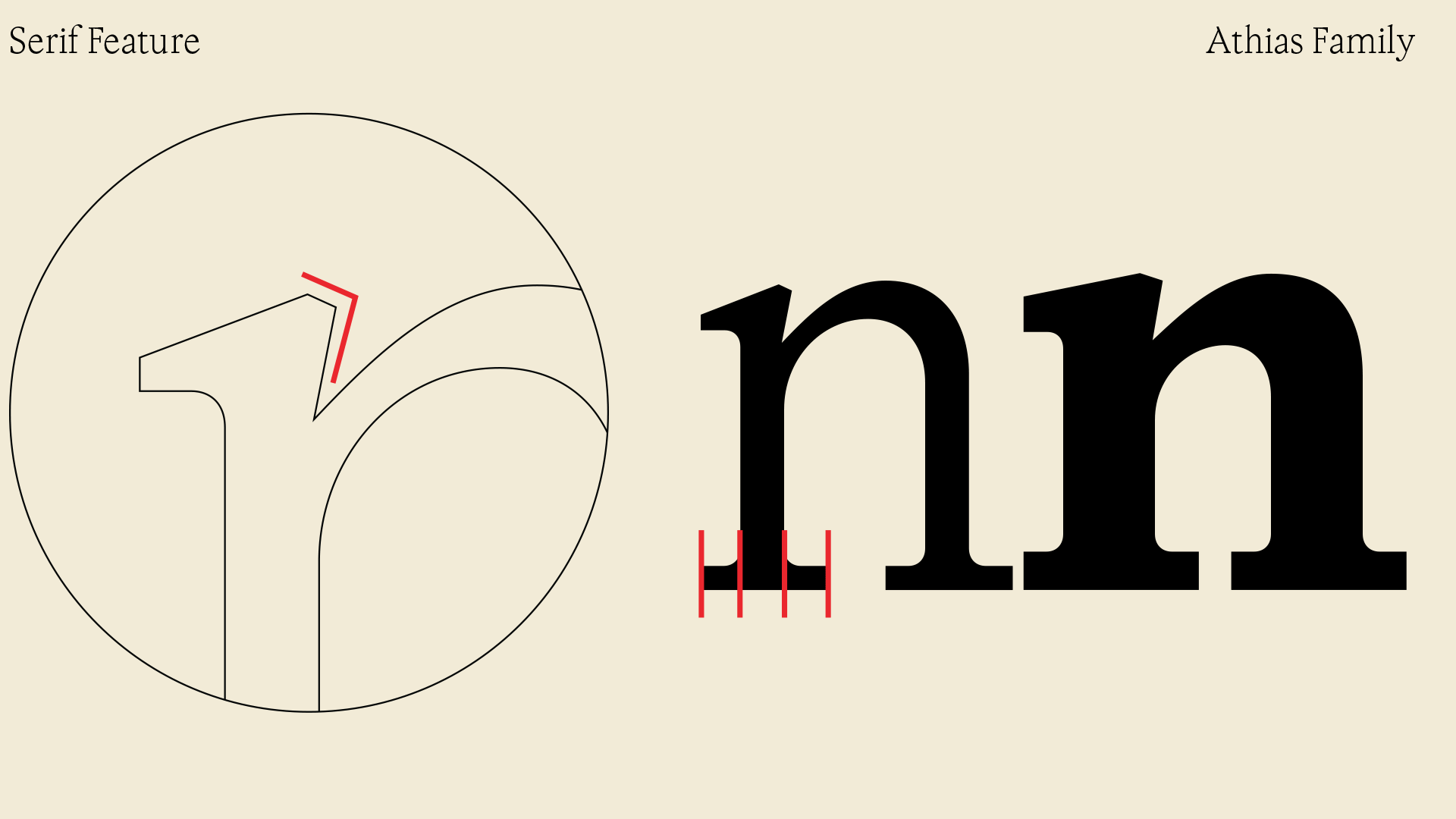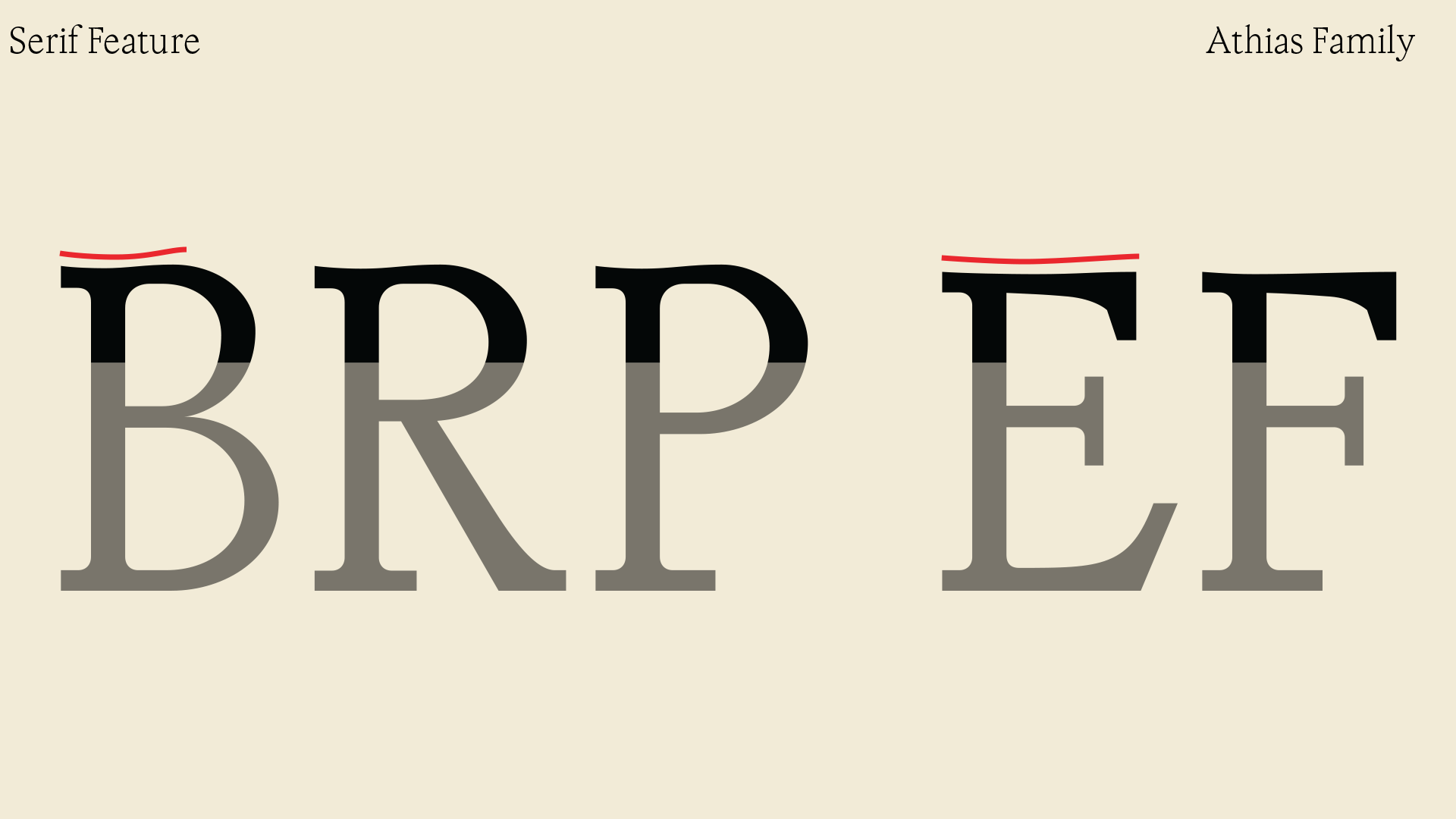
Athias
I have always wanted my first typeface to be a book typeface. So I took the opportunity at TypeParis 2023 to create the most complete version what I wanted to do. I understand when it comes to designing a book typeface, everything has to be simple. I don’t get to play around with the serif much, but in return, my focus is shifted to the typographic attention: evenness of color (texture), harmony in proportion and weight distribution, spacing between the letters and between the words.
Athias is born in Paris, summer 2023. Inspired by the concept of Trinite typeface family by Bram de Does (1934-2015), Athias comes in two variations of ascender to accommodate basic Latin language and most importantly, the underserved Vietnamese language. The typeface family is specifically design to suit book’s settings with high legibility in small text sizes. Recognizing the unique features of the Vietnamese language, Athias provides full Vietnamese alphabet in its secondary ascender, including diacritics and tone marks, ensure clarity and the nuances of Vietnamese literature are accurately represented. The design feature is classical with humanist letterforms and Roman capitals that comes in harmonious balance, resulting in a visually pleasing and culturally appropriate reading experience. Athias is the ideal typeface for Vietnamese educational books, faciliting an engaging experience for students, educators and literature enthusiasts.